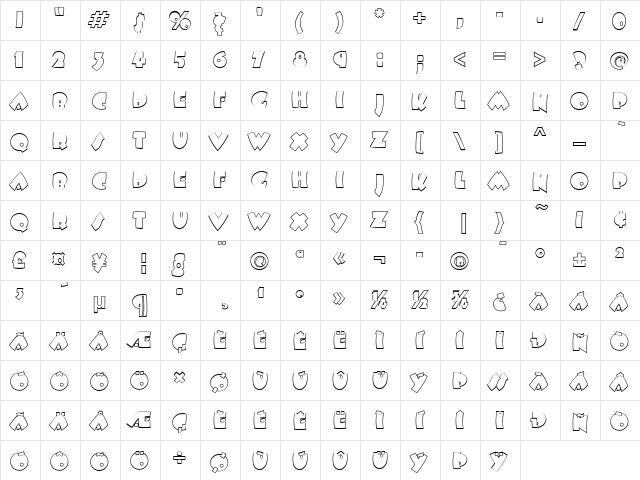
Beesknees Outline Itc P Regular Font Preview
Beesknees Outline Itc P Regular
Design Context for Beesknees Outline Itc P Typeface
Beesknees Outline Itc P brings ornamental detail and strong personality to headlines and identities, where visual impact matters more than quiet functionality.
Font Pairing: Pair with a clean neutral sans-serif for body copy to let Beesknees Outline Itc P's character lead without overwhelming the composition.
Pro Tip: Treat Beesknees Outline Itc P as the centrepiece of your typographic hierarchy. One strong heading set in a decorative face can carry an entire layout.